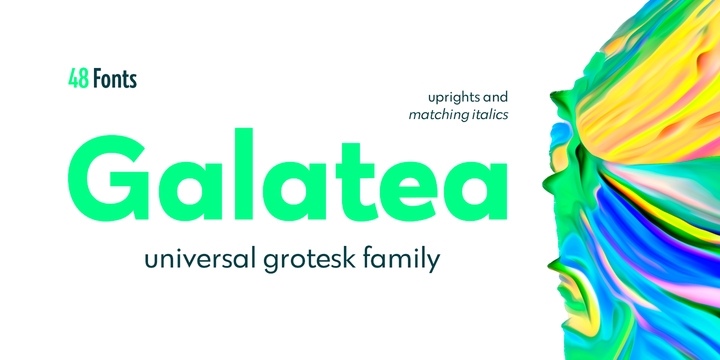
Galatea Font
Galatea Font is perfect for art gallery branding, sculpture exhibition materials, classical music concert promotions, fine arts academy signage, museum publication layouts, artistic workshop invitations, creative studio logos, cultural foundation materials, renaissance-themed events, and sophisticated art collection catalogs.
What makes Galatea Font so exciting is its extraordinary ability to embody the divine transformation of art and beauty through letterforms that seem carved from marble by master sculptors with infinite patience and skill. This magnificent typeface draws inspiration from the mythological Galatea, the ivory statue brought to life through the power of love and artistic perfection, featuring characters that capture the essence of classical artistry and timeless beauty. The font's sculptural design elements perfectly balance strength with grace, creating a versatile tool that communicates artistic excellence, cultural sophistication, and creative inspiration, making it essential for projects celebrating the transformative power of art.
Galatea Font comes in multiple font families including Regular, Bold, Light, Italic, Bold Italic, Carved, Classical, and Sculpted variations. Each family member maintains the core artistic characteristics while offering different refinement levels and stylistic approaches to suit various cultural design requirements.
The sculptural precision in Galatea Font makes it particularly suitable for cultural institutions and artistic organizations where authenticity and refined aesthetics are essential for connecting with educated audiences. Its masterful letterforms maintain excellent readability while preserving the classical elegance that appeals to art enthusiasts seeking sophisticated cultural experiences and meaningful artistic encounters.
Arts marketing professionals recognize how Galatea Font transforms ordinary promotional text into inspiring invitations to cultural enlightenment and artistic discovery. The typeface's refined character set includes special artistic symbols and classical elements that enhance the overall sophisticated atmosphere of any cultural project.
For creative professionals serving museums, galleries, and cultural organizations, Galatea Font serves as the perfect foundation for establishing memorable visual identities that capture the eternal beauty and transformative power of art while honoring the classical traditions that continue to inspire artists and art lovers worldwide.